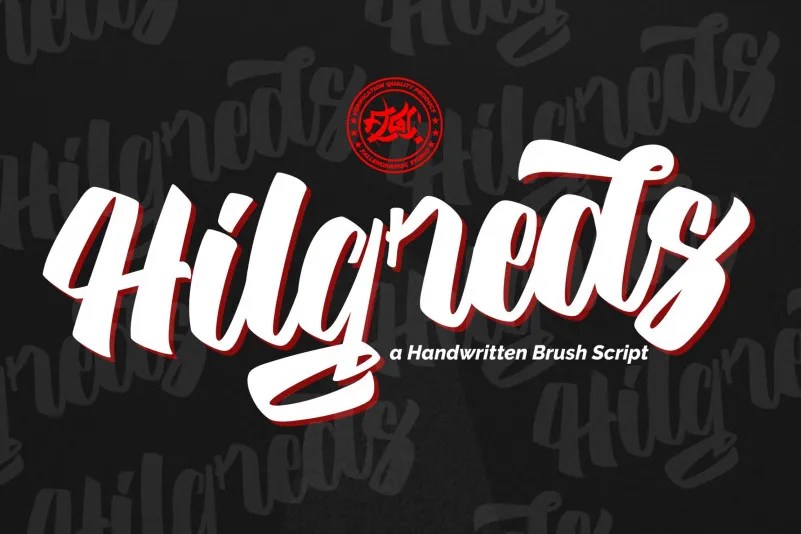
Hilgreds Script – Free Demo
Continuing to be a great design from FallenGraphic Studio. Hilgreds Font is a bold script that will stands out from the crowd. This font is great for creating horror, action and rock themed designs. It’s an amazing handwritten font . Made with naturally handwritten. The font will make your design more beautiful and powerful. So beautiful on invitation like greeting cards, branding materials, business cards, quotes, posters, and more!